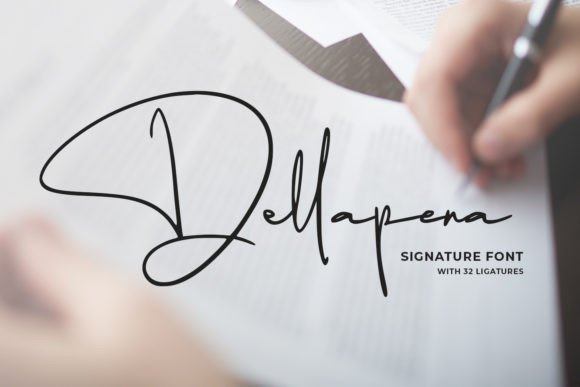
Dellapena Font: Elevate Your Design with Romantic and Sweet Calligraphy
In the world of typography, fonts play a crucial role in conveying the tone and personality of a design project. If you’re looking for a typeface that exudes romance, sweetness, and luxury, look no further than the Dellapena Font. This stunning calligraphy font is designed to add a touch of elegance and sophistication to any design project, making it perfect for creatives, designers, and marketers alike.
What is Dellapena Font?
Dellapena is a romantic and sweet calligraphy typeface that features characters that dance along the baseline, creating a sense of movement and fluidity. This beautiful font is crafted to add a luxury spark to any design project, making it ideal for a wide range of applications, from wedding invitations and branding materials to packaging and advertising.
Key Features of Dellapena Font
So, what sets Dellapena Font apart from other typefaces? Here are some of its key features:
- Romantic and Sweet: Dellapena Font is designed to evoke feelings of romance and sweetness, making it perfect for projects that require a touch of elegance and sophistication.
- Luxury Spark: With its flowing lines and beautiful connections, Dellapena Font adds a luxury spark to any design project, elevating it to the next level.
- PUA Encoded: This font is PUA (Private Use Area) encoded, which means you can access all of the amazing glyphs and ligatures with ease, giving you maximum flexibility and creative control.
- Calligraphy Style: Dellapena Font features a beautiful calligraphy style, with characters that dance along the baseline, creating a sense of movement and fluidity.
Benefits of Using Dellapena Font
So, why should you choose Dellapena Font for your design project? Here are some of the benefits of using this stunning typeface:
- Adds Elegance and Sophistication: Dellapena Font adds a touch of elegance and sophistication to any design project, making it perfect for high-end branding, wedding invitations, and luxury packaging.
- Versatile: This font is versatile and can be used for a wide range of applications, from digital designs to print materials.
- Easy to Use: With its PUA encoding, Dellapena Font is easy to use, and you can access all of the amazing glyphs and ligatures with ease.
- Unique and Creative: Dellapena Font is a unique and creative typeface that will set your design project apart from the rest.
Who Can Use Dellapena Font?
Dellapena Font is perfect for a wide range of designers, creatives, and marketers, including:
- Graphic Designers: Graphic designers can use Dellapena Font to add a touch of elegance and sophistication to their designs, making it perfect for branding, packaging, and advertising projects.
- Wedding Planners and Stylists: Wedding planners and stylists can use Dellapena Font to create beautiful wedding invitations, stationery, and other materials that require a romantic and sweet touch.
- Digital Designers: Digital designers can use Dellapena Font to create stunning digital designs, including social media graphics, email newsletters, and website headers.
- Marketers: Marketers can use Dellapena Font to add a touch of luxury and sophistication to their marketing materials, including brochures, flyers, and posters.
Tips for Using Dellapena Font
Here are some tips for using Dellapena Font effectively:
- Use it for Headings and Titles: Dellapena Font is perfect for headings and titles, where you want to make a statement and add a touch of elegance and sophistication.
- Pair it with Other Fonts: You can pair Dellapena Font with other fonts to create a unique and creative look. Try pairing it with a sans-serif font for a modern and elegant look.
- Experiment with Colors: Dellapena Font looks stunning in a range of colors, from metallic gold and silver to soft pastels. Experiment with different colors to find the perfect look for your design project.
- Pay Attention to Kerning and Tracking: Make sure to pay attention to kerning and tracking when using Dellapena Font. Adjusting these settings can help you achieve a more polished and professional look.
In conclusion, Dellapena Font is a stunning calligraphy typeface that adds a touch of elegance and sophistication to any design project. With its romantic and sweet style, luxury spark, and PUA encoding, this font is perfect for creatives, designers, and marketers who want to elevate their designs to the next level. Whether you’re working on a wedding invitation, branding project, or packaging design, Dellapena Font is a versatile and creative typeface that will help you achieve your design goals.